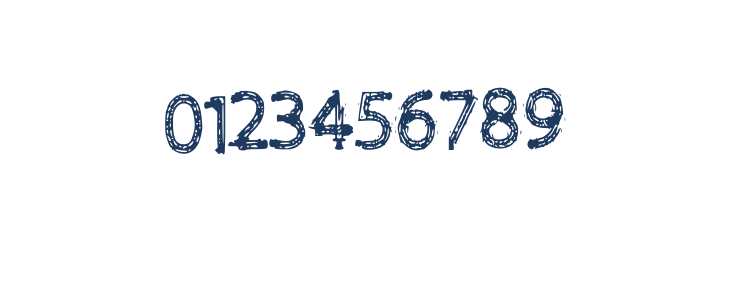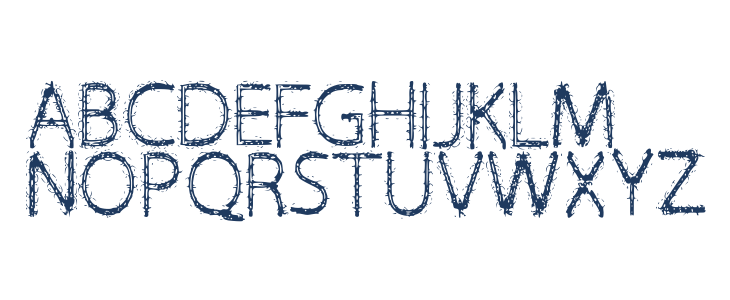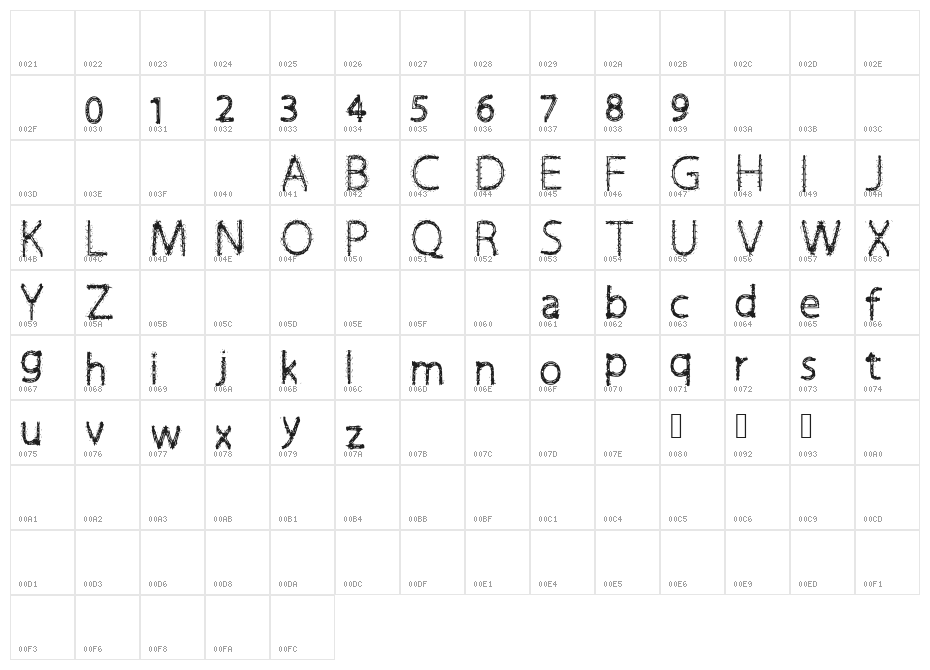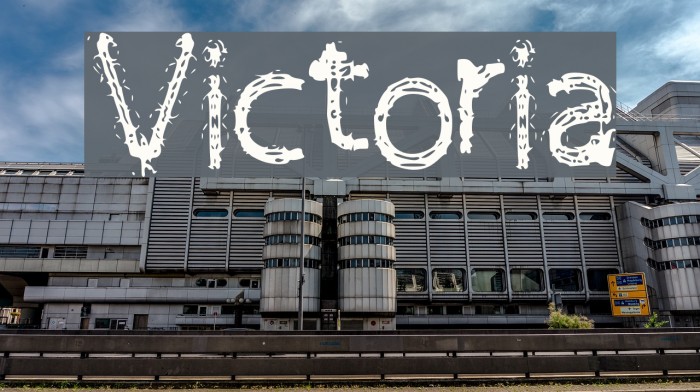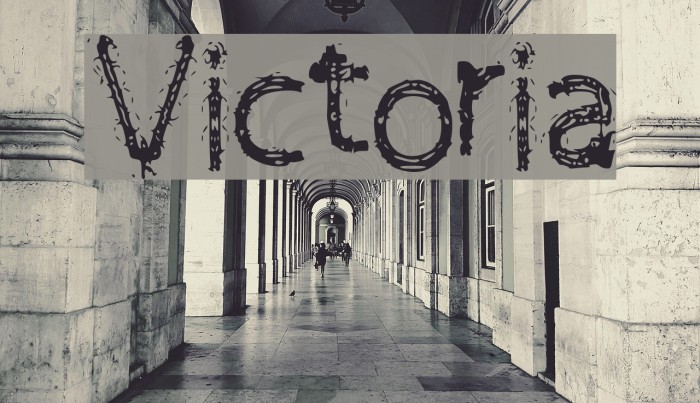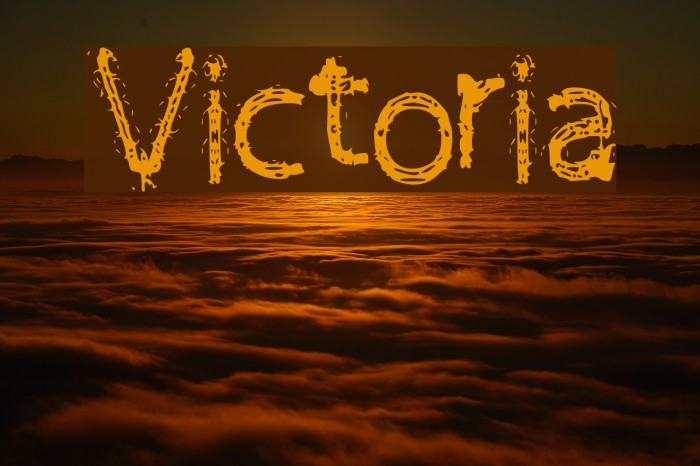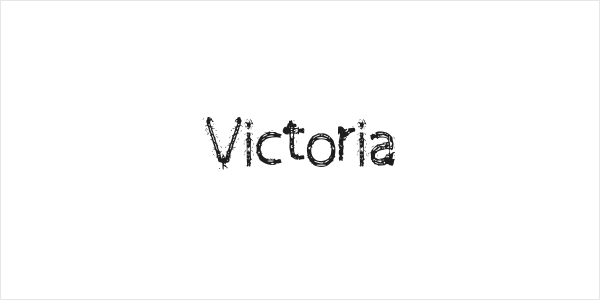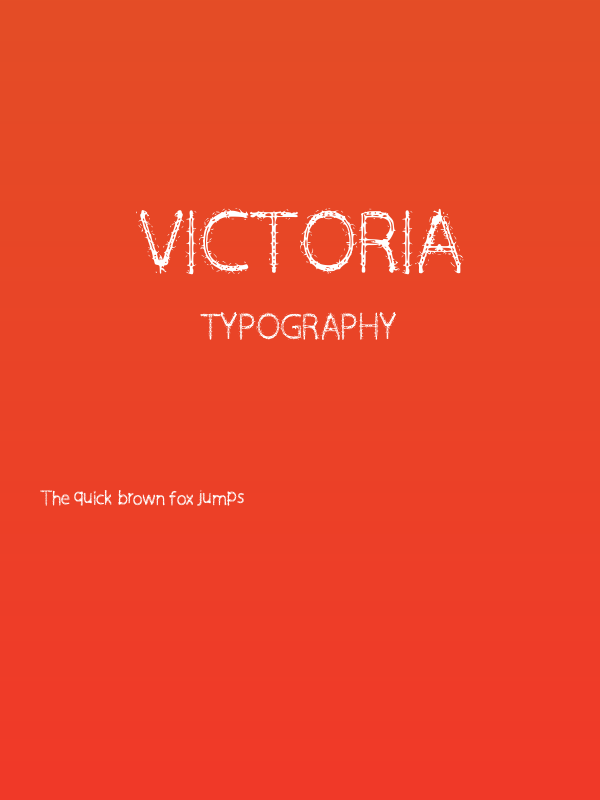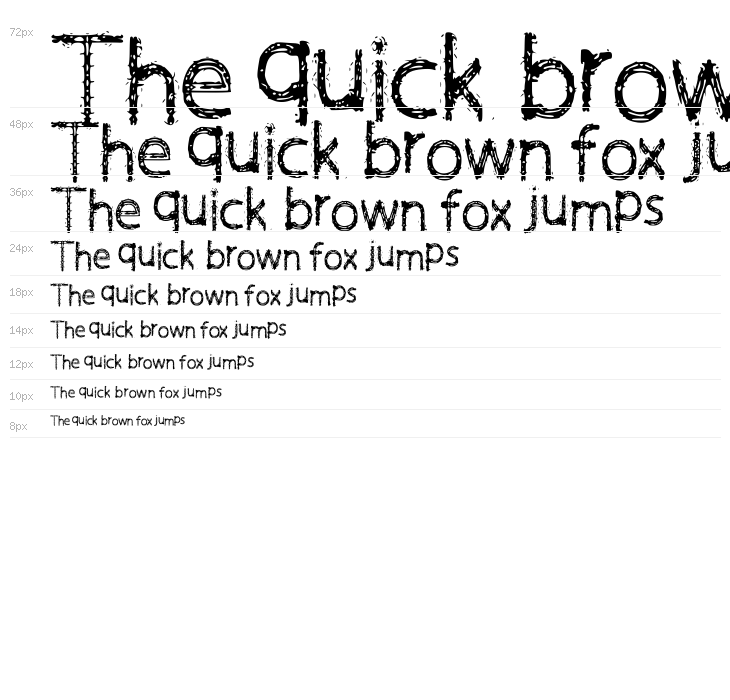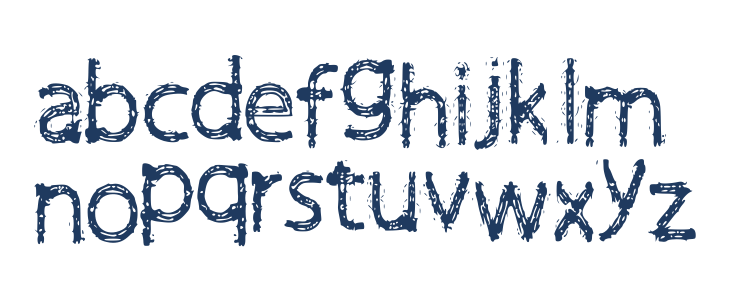
Victoria Font
Victoria Description
This font features a unique, distressed appearance with a hand-drawn quality. Each character is outlined with a rough, textured edge that gives it a dynamic and energetic feel. The letters are bold and slightly irregular, adding to the handcrafted aesthetic. The uppercase and lowercase letters maintain a consistent style, while the numbers and special characters follow the same design principles. This font is ideal for projects that require a bold statement or an artistic touch, such as posters, album covers, or creative branding.
| Proposed Projects | Ideal for posters, album covers, creative branding, and artistic projects. |